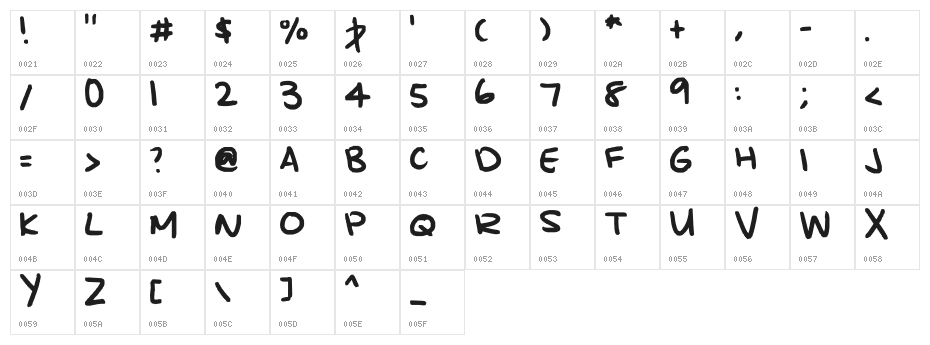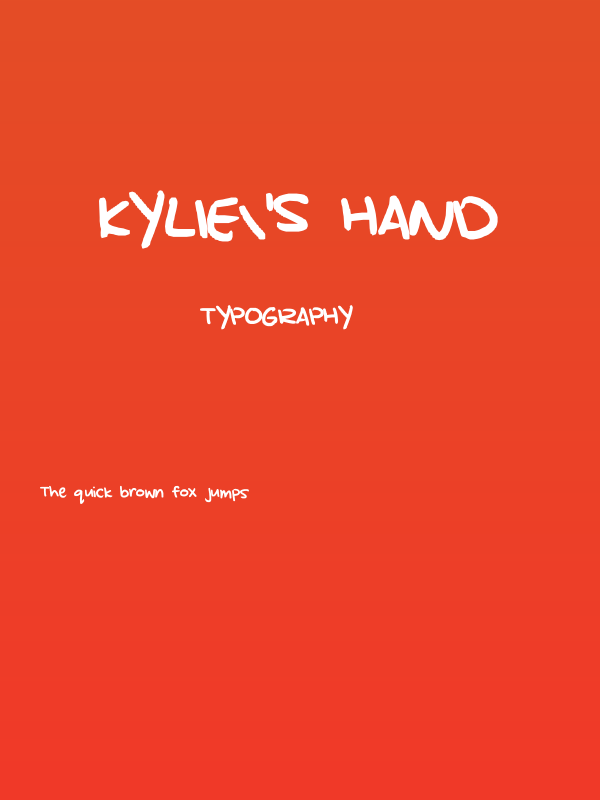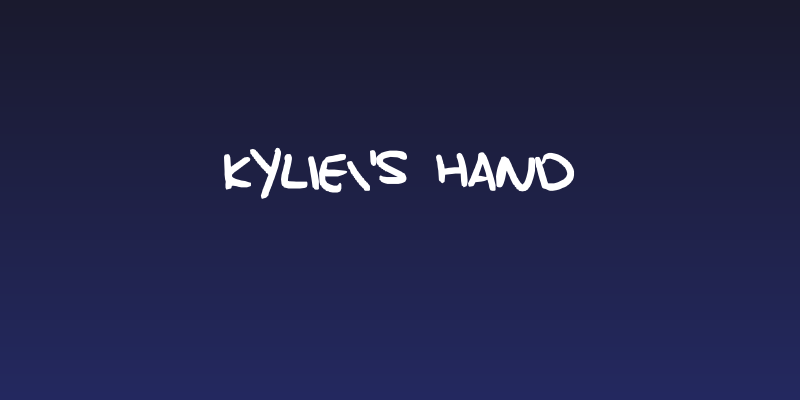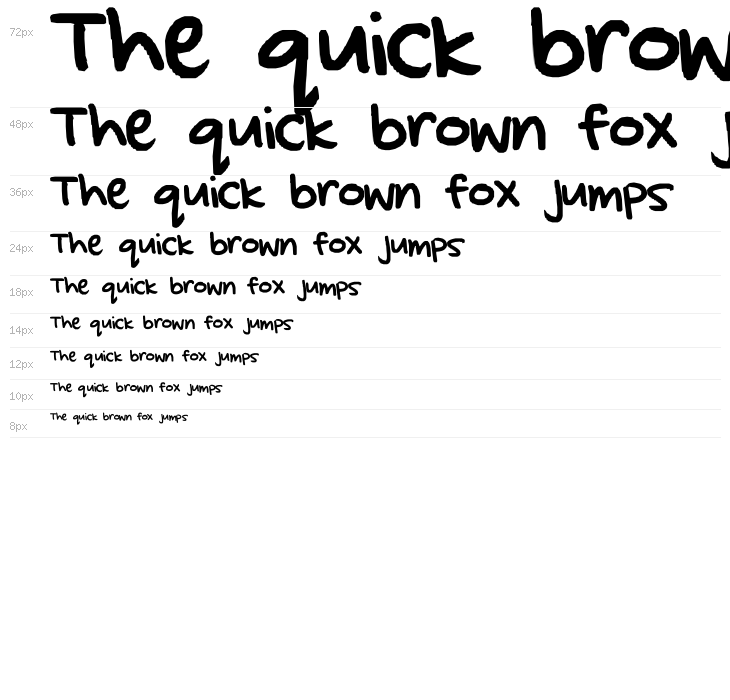
kylie's hand Font
kylie's hand Description
This playful and energetic font exudes a casual, handwritten style that mimics the look of a marker or brush pen. The letters are bold and rounded, with a slightly uneven baseline that adds to its informal charm. Each character is distinct, with a consistent stroke width that maintains readability while conveying a sense of spontaneity. The numbers and special characters follow the same lively aesthetic, making it versatile for various creative applications. Its unique personality makes it ideal for projects that require a personal touch or a fun, approachable vibe.
Overall StyleCasual, Playful
Use CaseHeadlines, Informal text, Creative projects
Proposed ProjectsIdeal for greeting cards, children's books, informal branding, social media graphics, and personal projects.